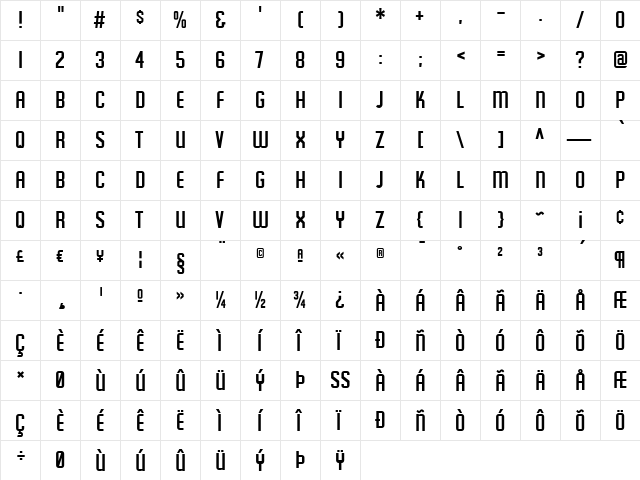
Featured Item Medium
| Foundry | Font Diner |
| Designer | Stuart Sandler |
Design Context for Featured Item Typeface
Featured Item offers clean, dependable letterforms without strong stylistic allegiance, making it a practical choice for designers who need flexibility.
Pro Tip: Pair Featured Item with a font of contrasting weight or personality to build a more expressive typographic hierarchy.